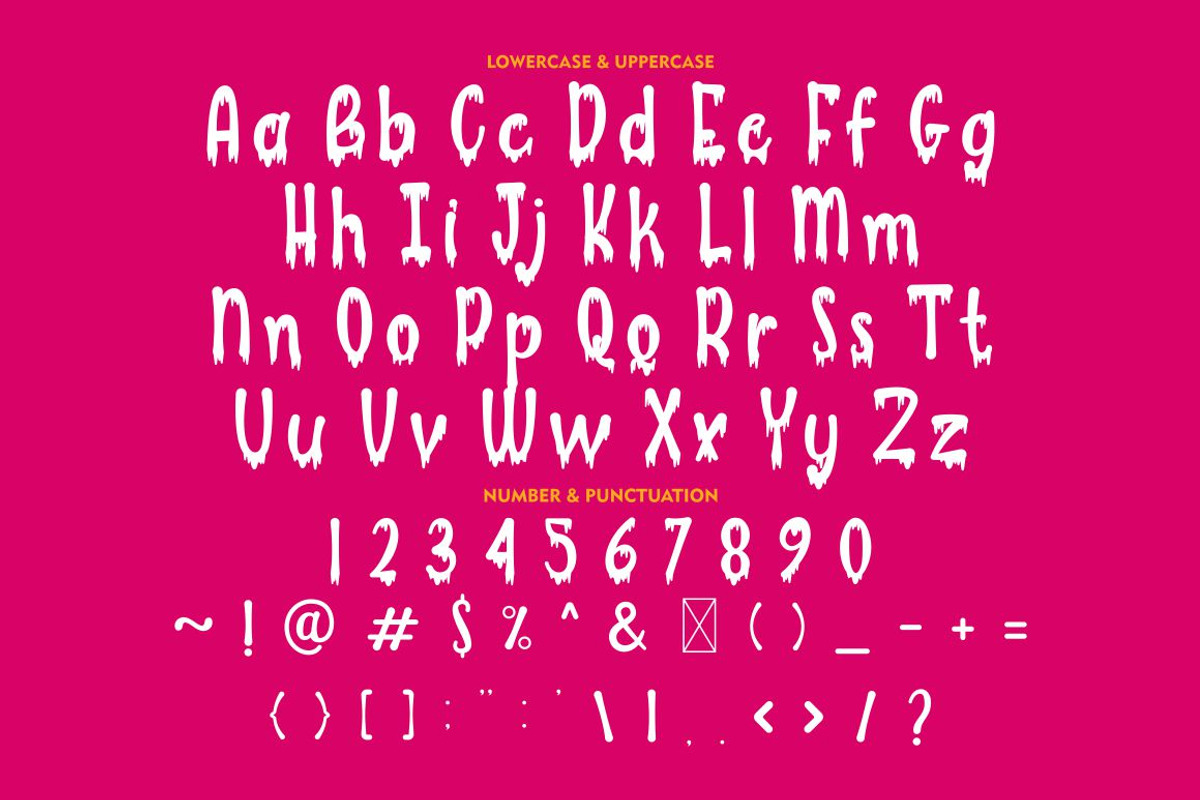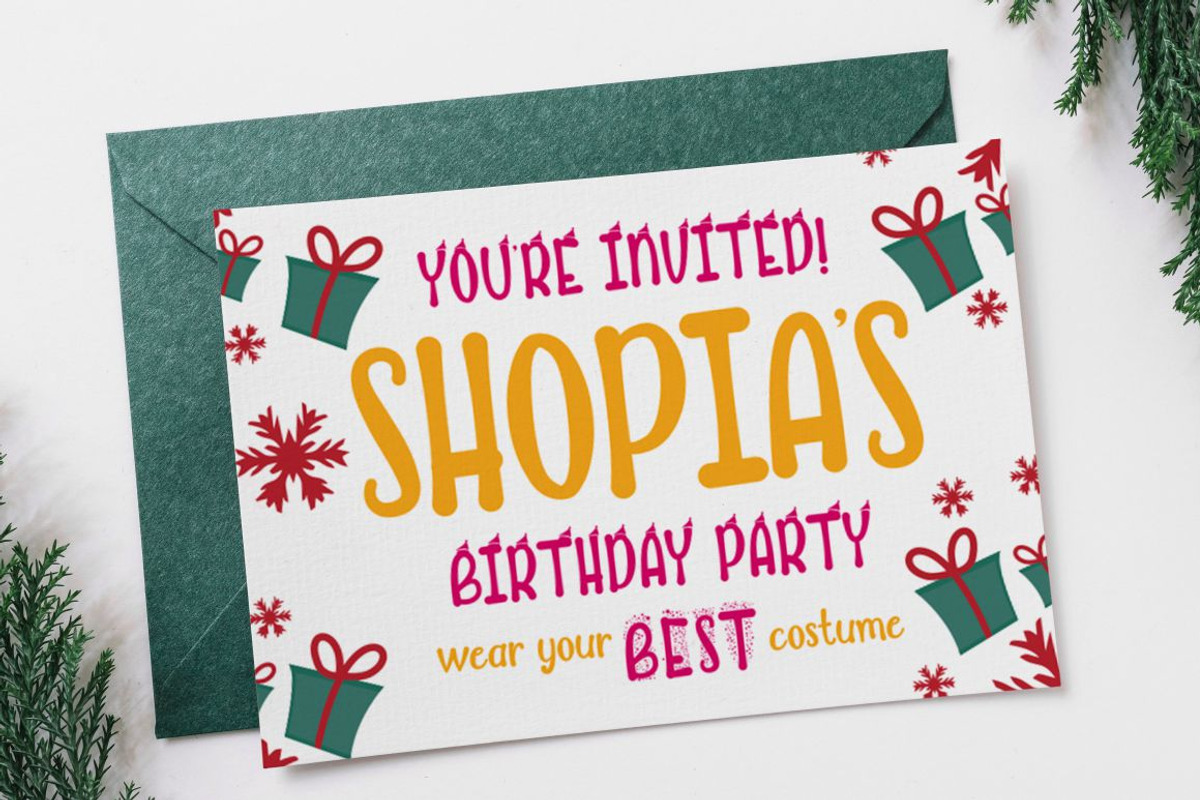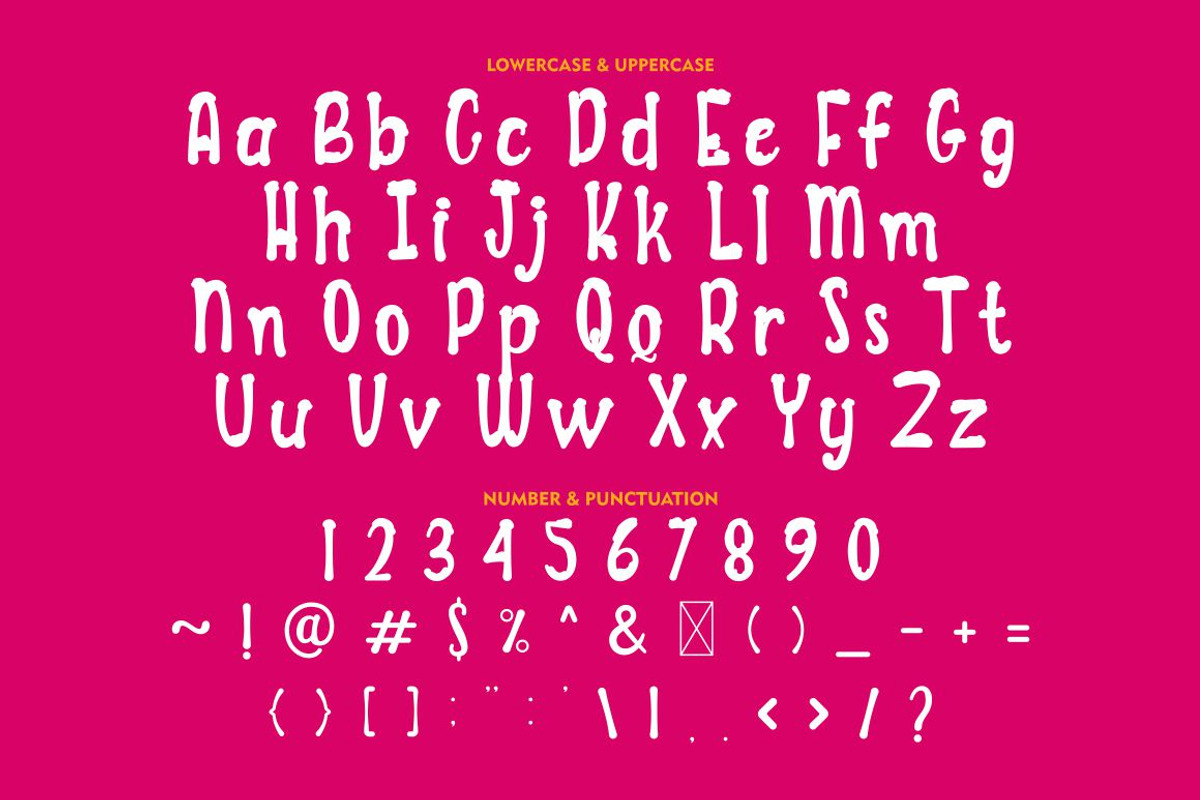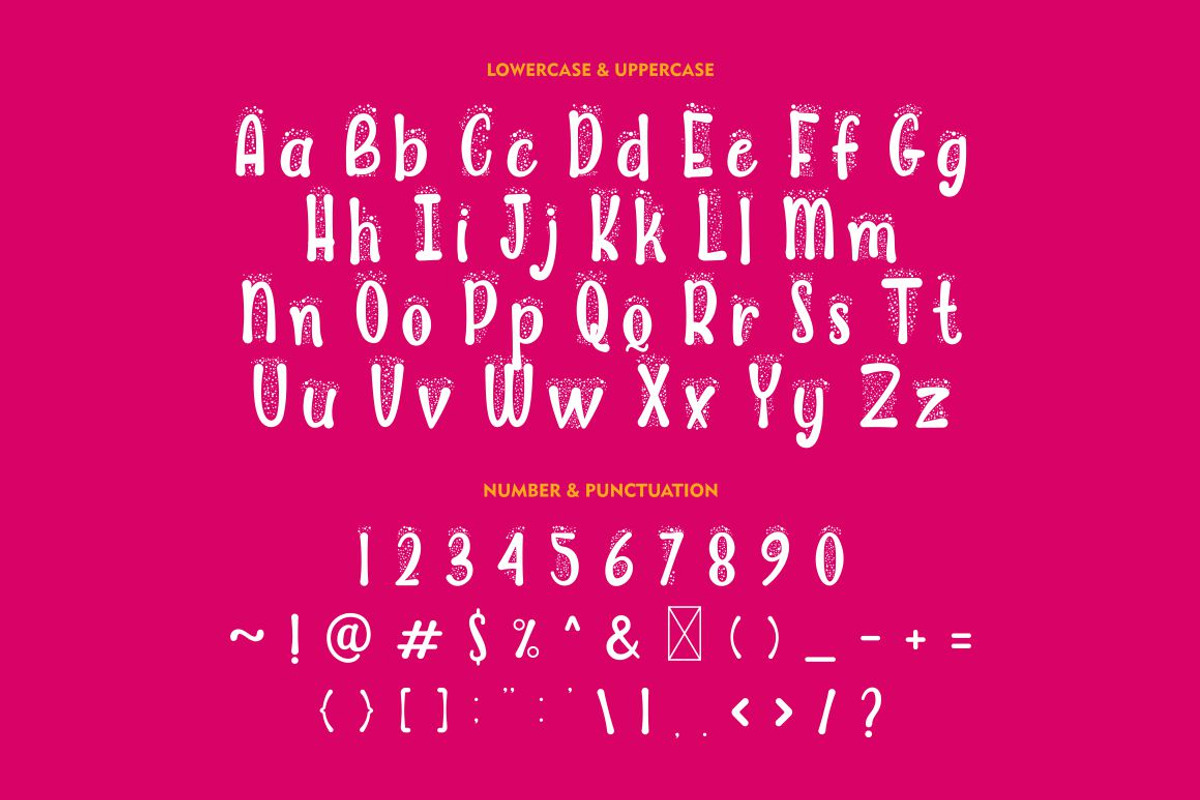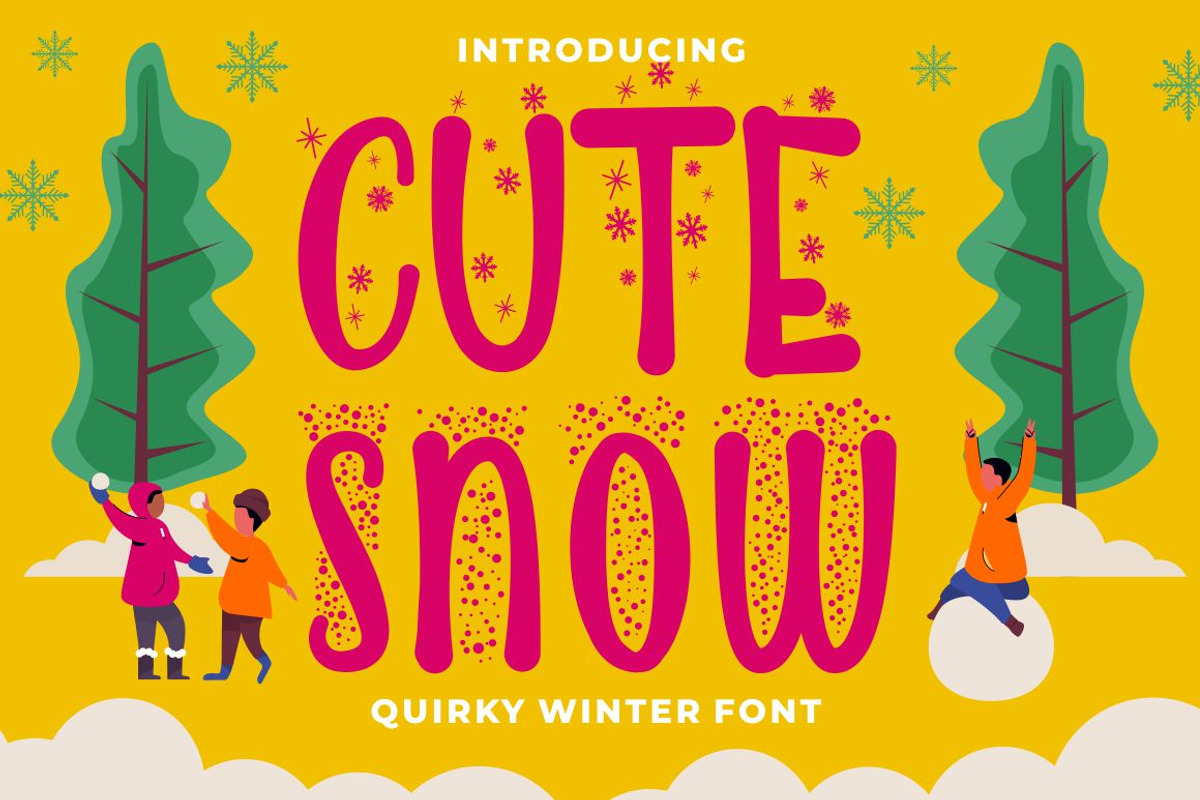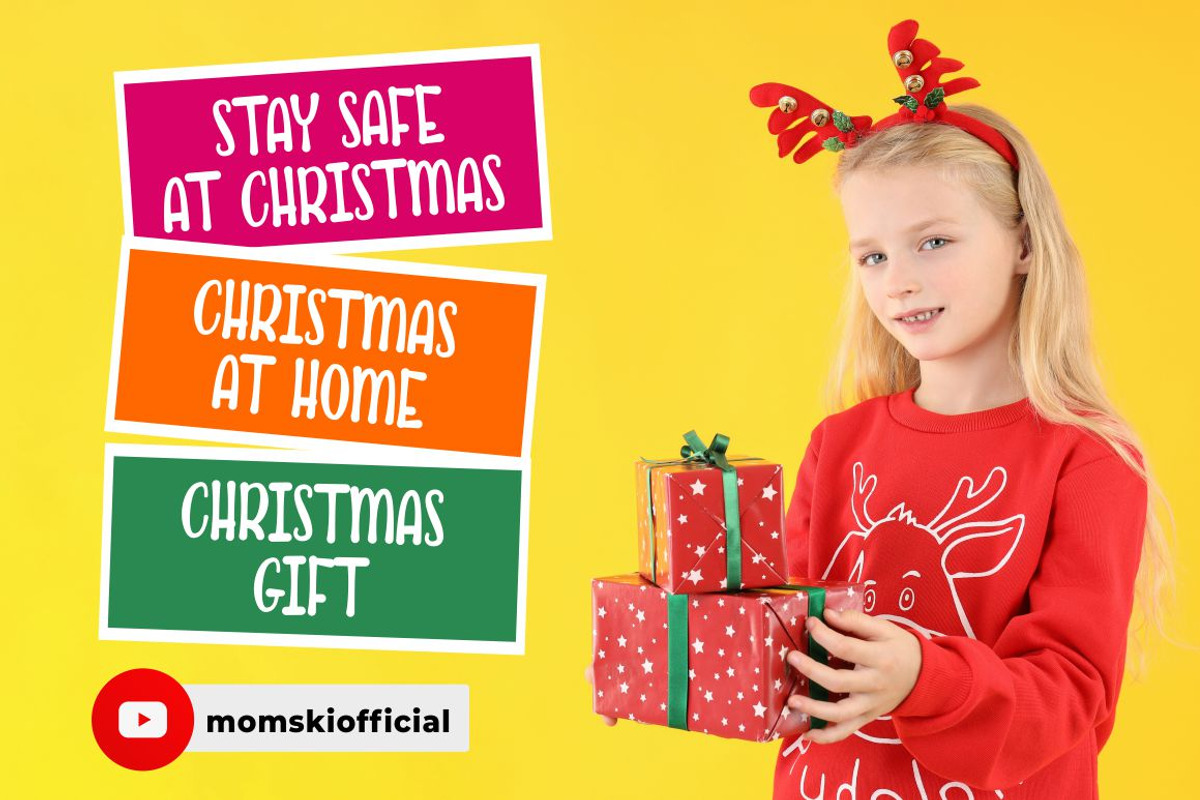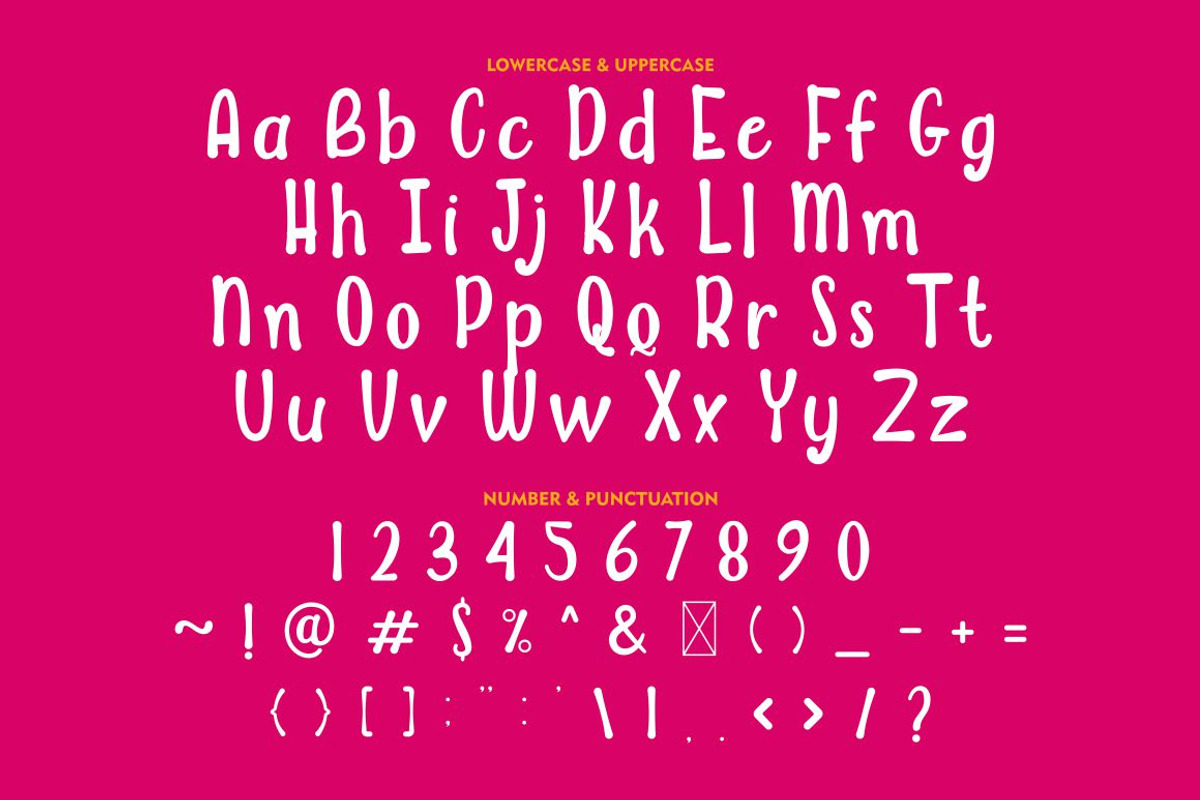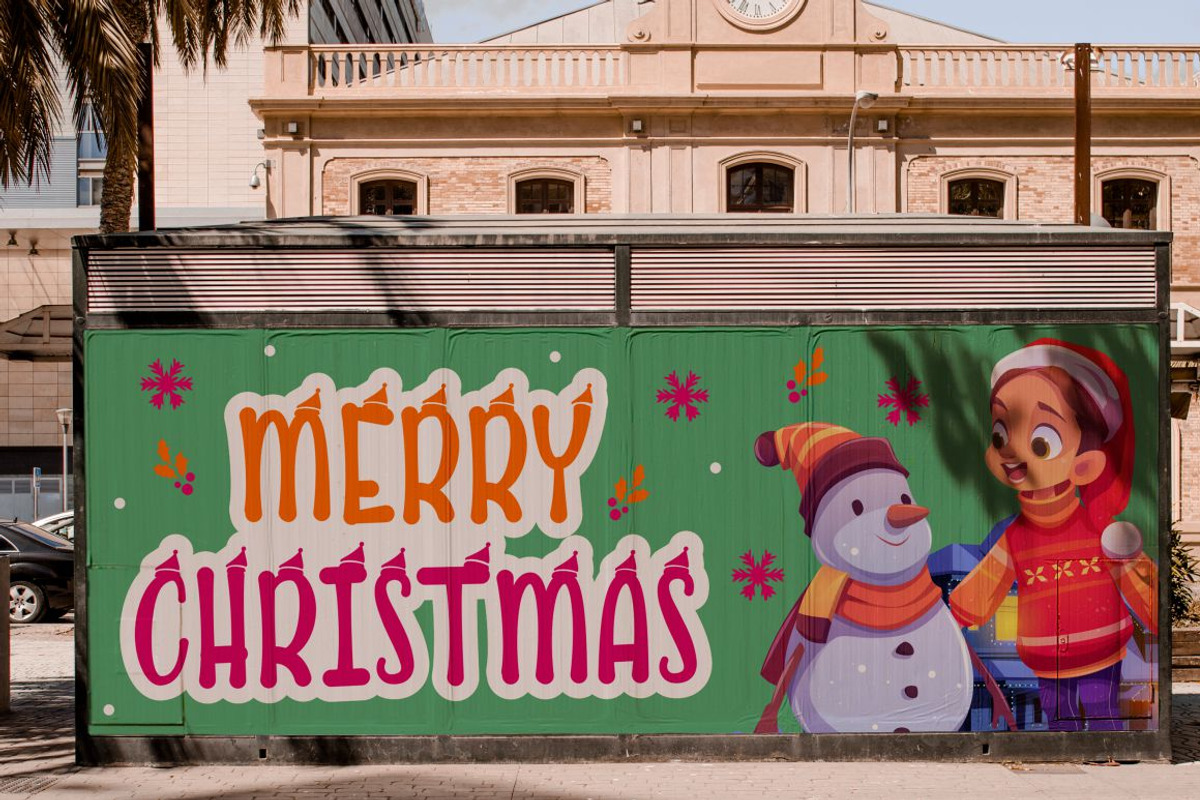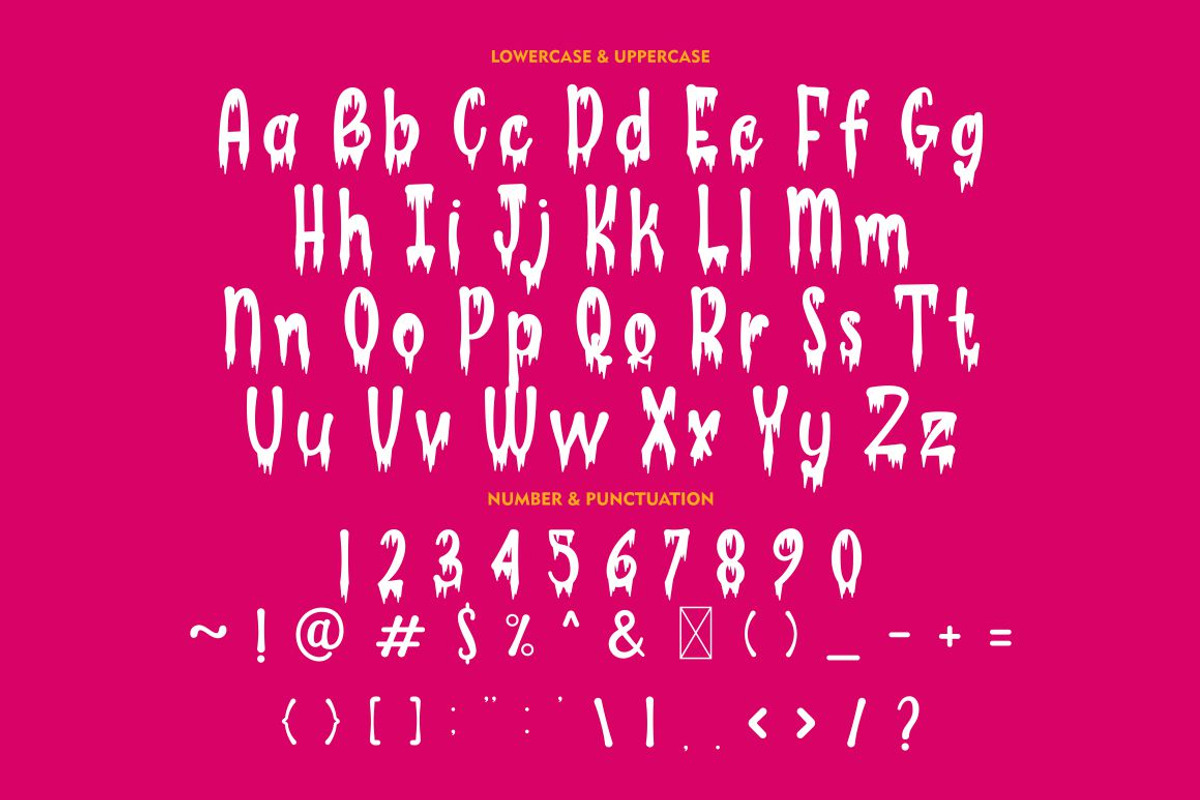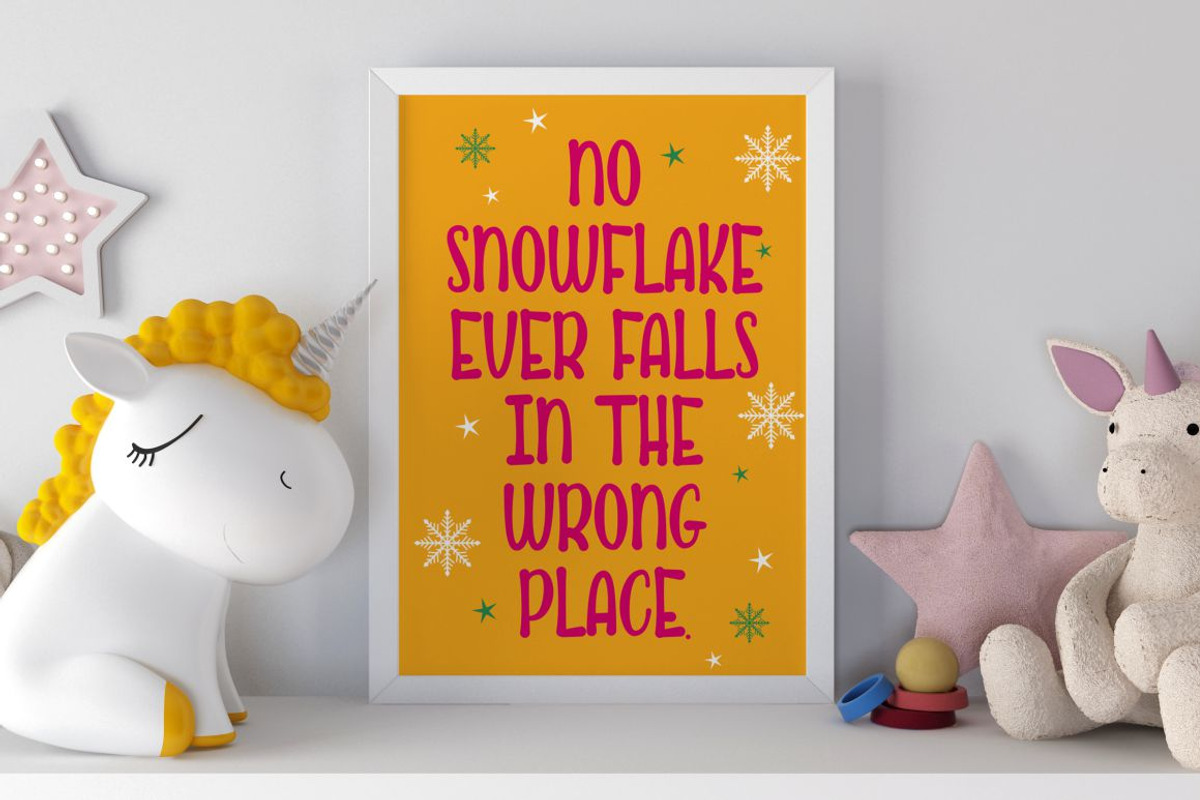
Cute Snow - Quirky Winter Font
CUTE SNOW - QUIRKY WINTER FONT
Cute Snow - Quirky Winter Font. Cute Snow a quirky playful font with 7 different style of the font. Each style has a difference in the decoration of the ornaments. This font is a winter theme font, so all the decorations are winter-related, such as: snow, snow cap, snowman, snow frezze, melt ice, snow pile and sparkle. With these decorations, this font will be perfect for your winter-themed projects.
This font is also suitable for logos, branding, quotes, posters, stickers, greeting cards, invitation cards, birthday cards, quotes, crafting, svg, banners, movies, headlines and more.
This font is also support multi language.